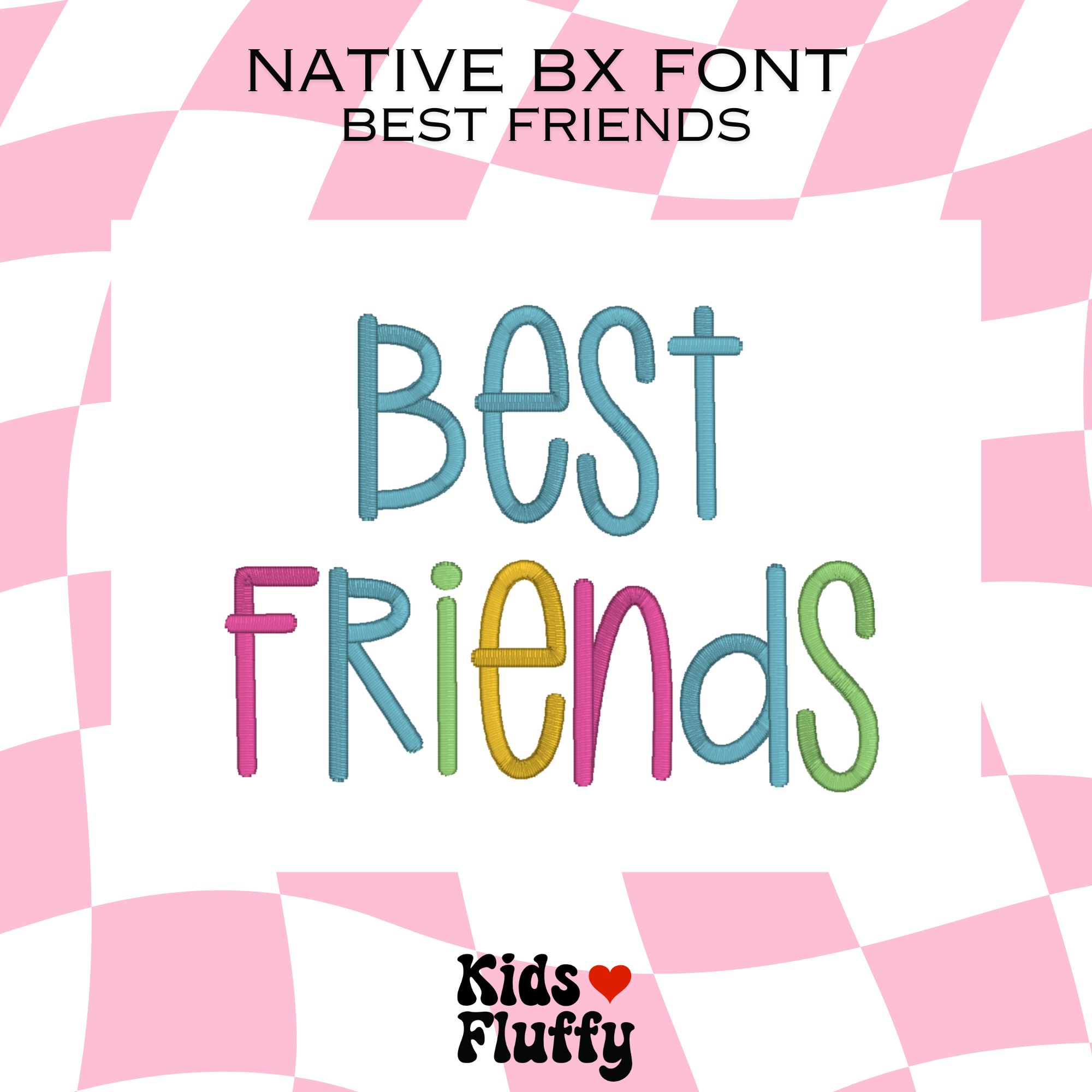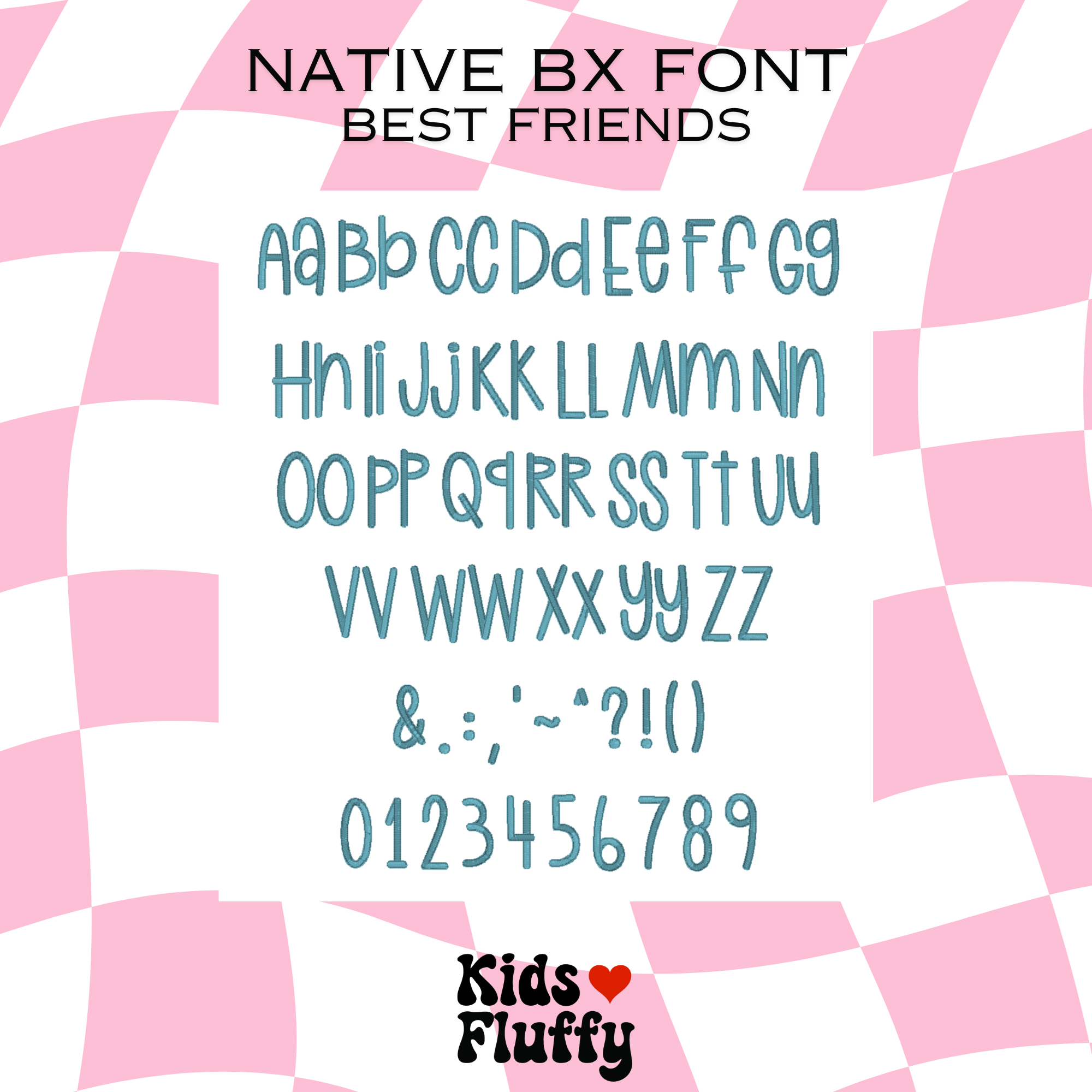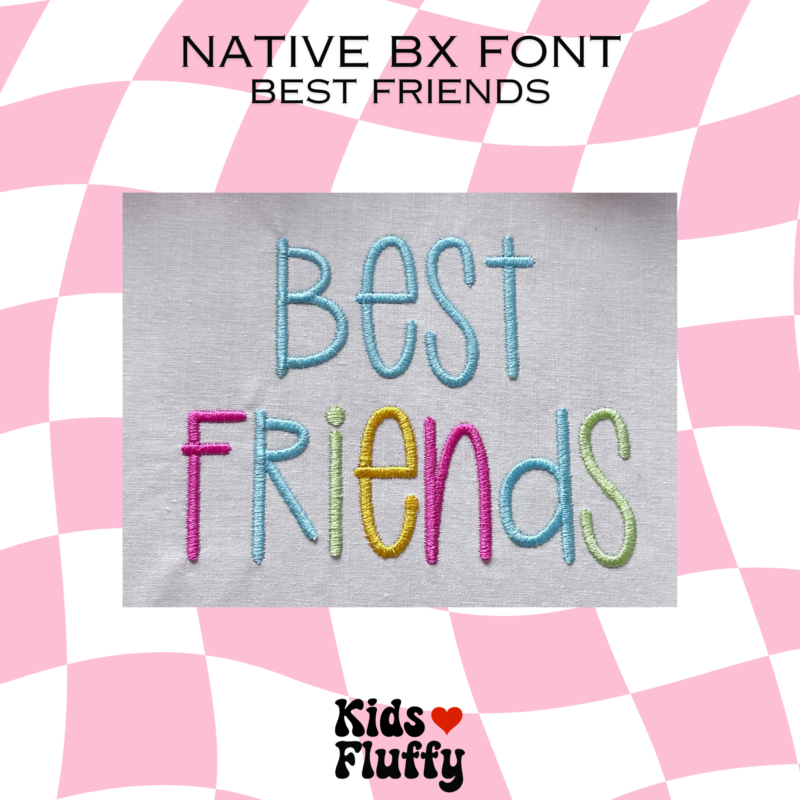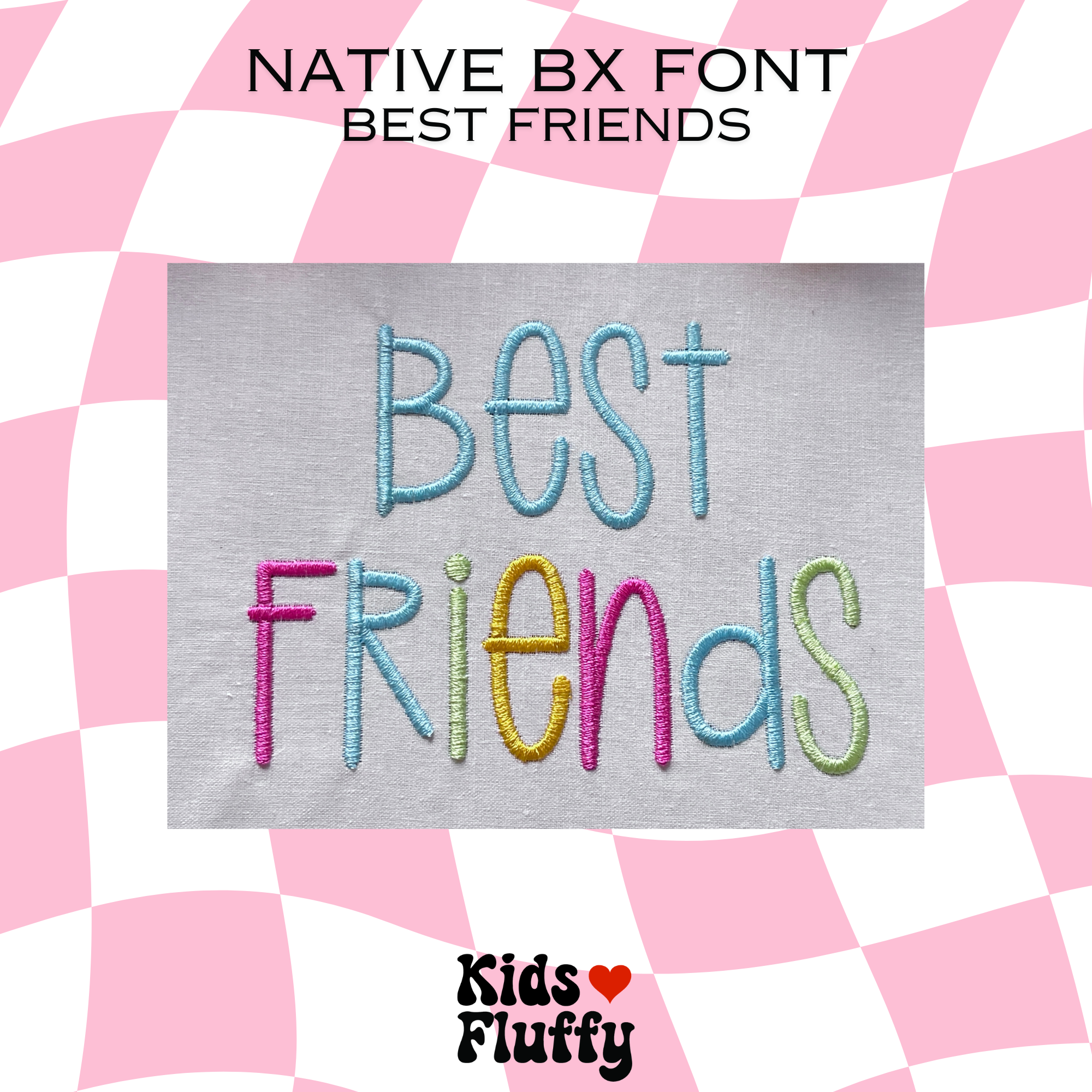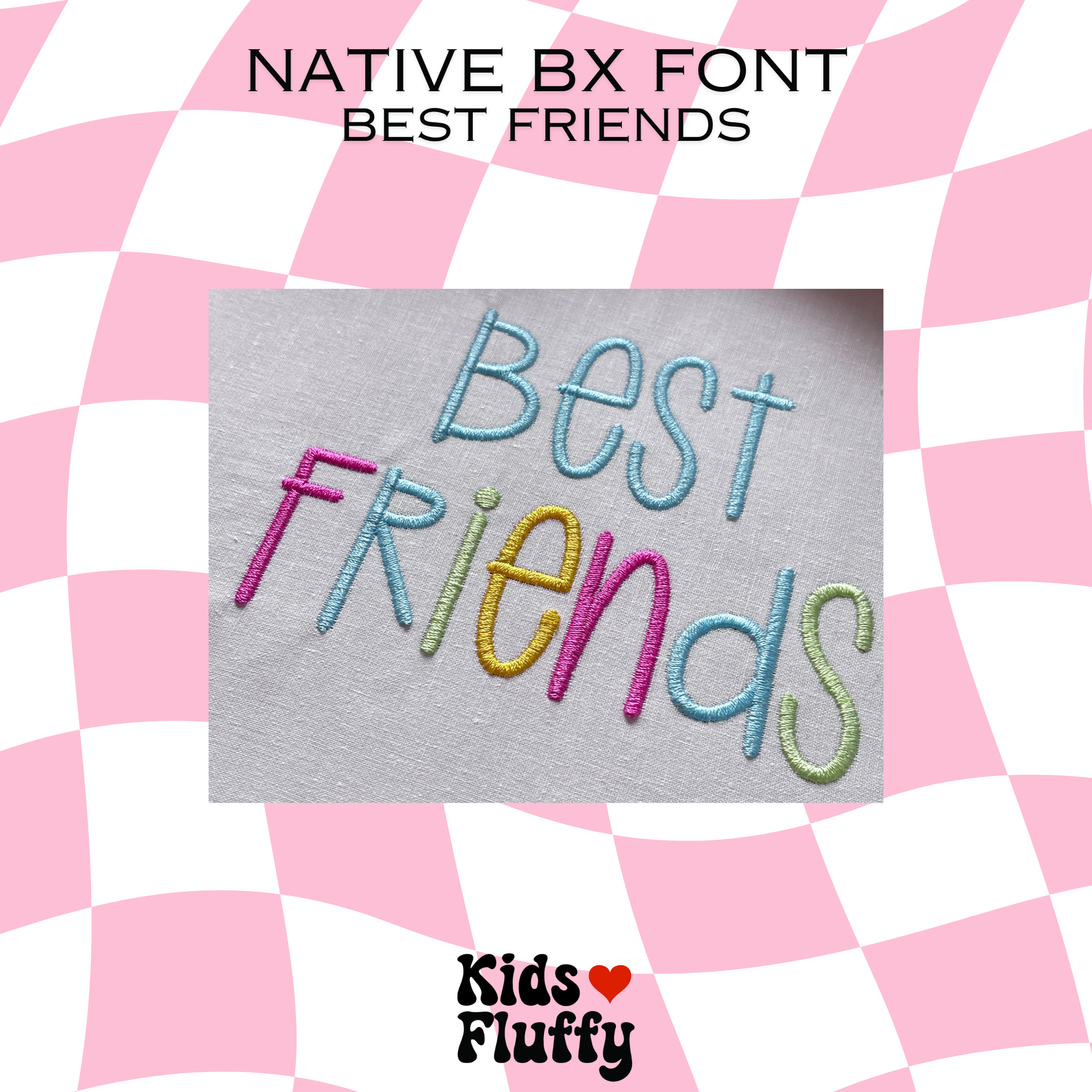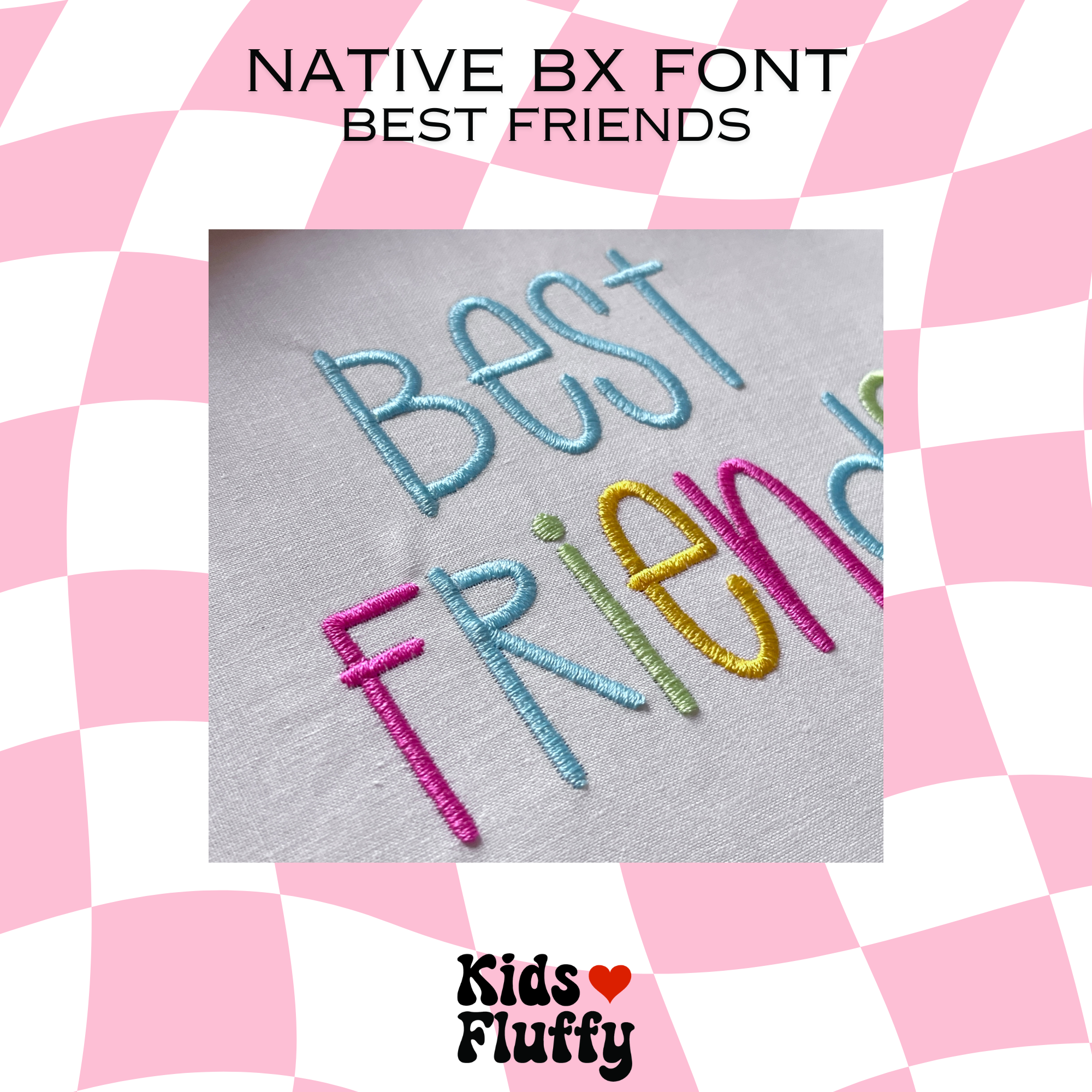
Best Friends Native BX Font
✨ Best Friends BX Embroidery Font – Native BX for Embrilliance
Add a friendly and playful touch to your embroidery with the Best Friends BX font. This satin stitch alphabet is perfect for names, gifts and personalized creations.